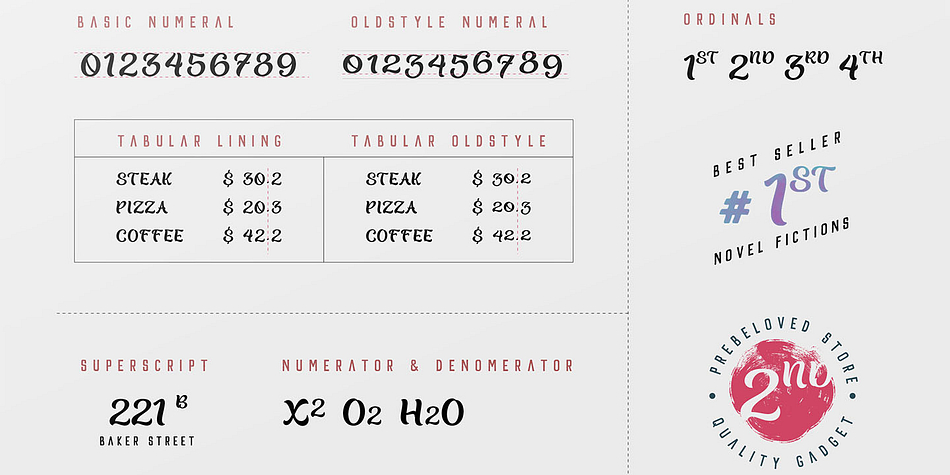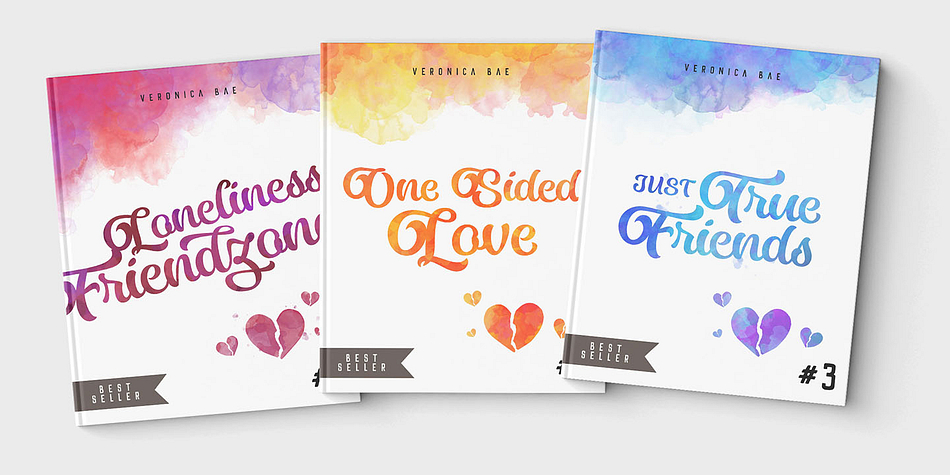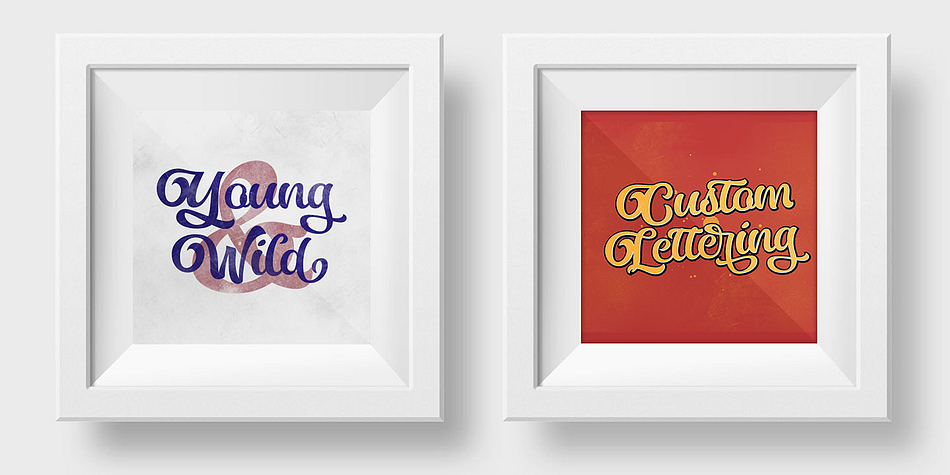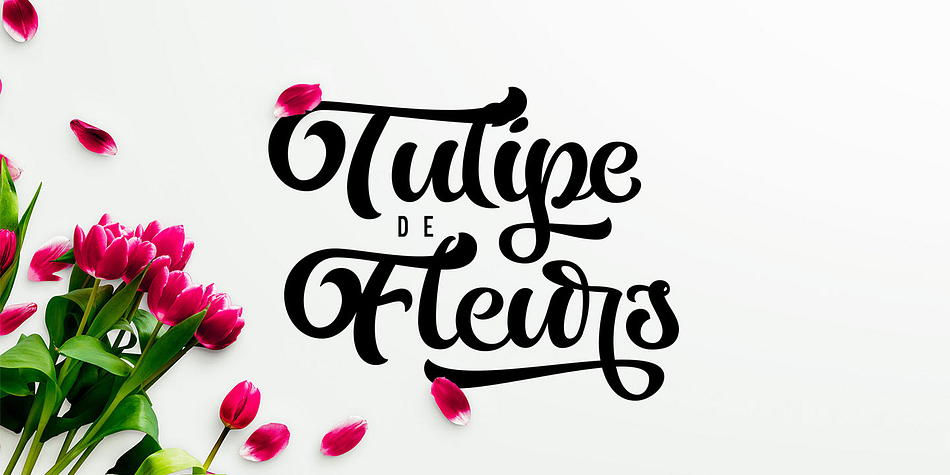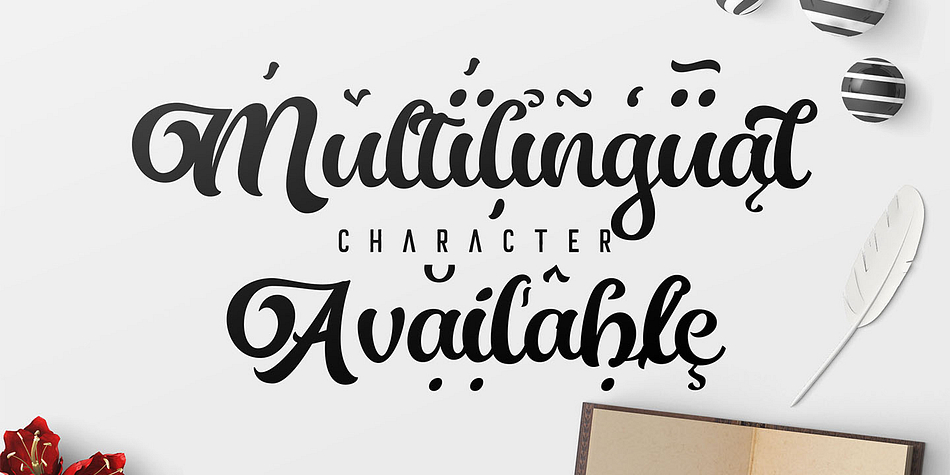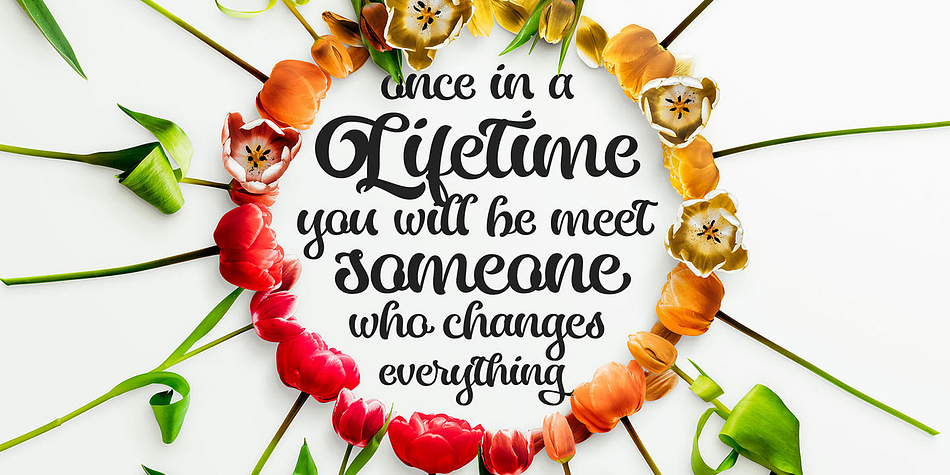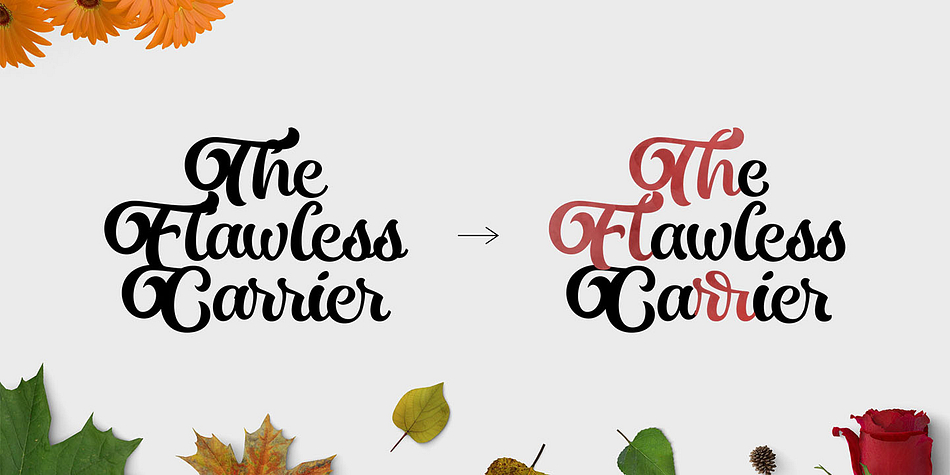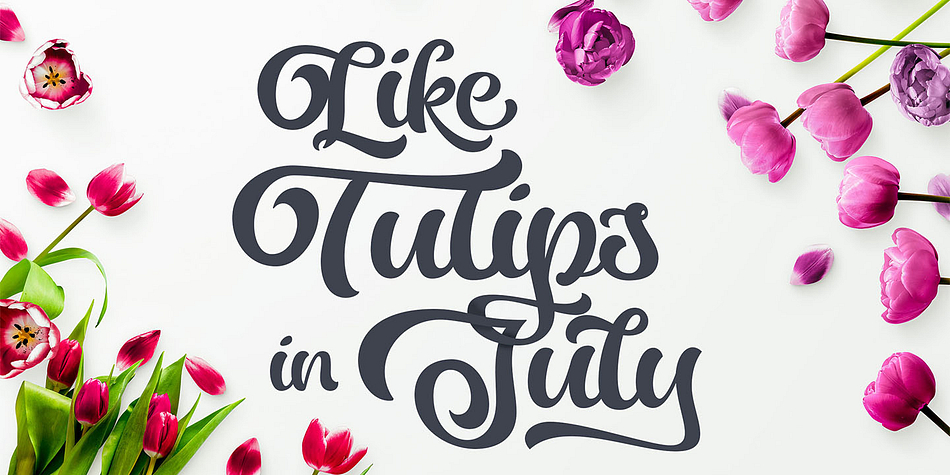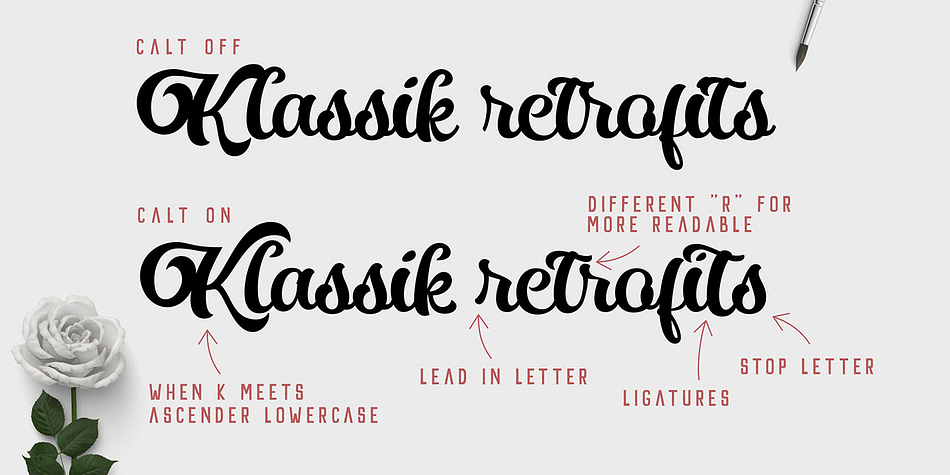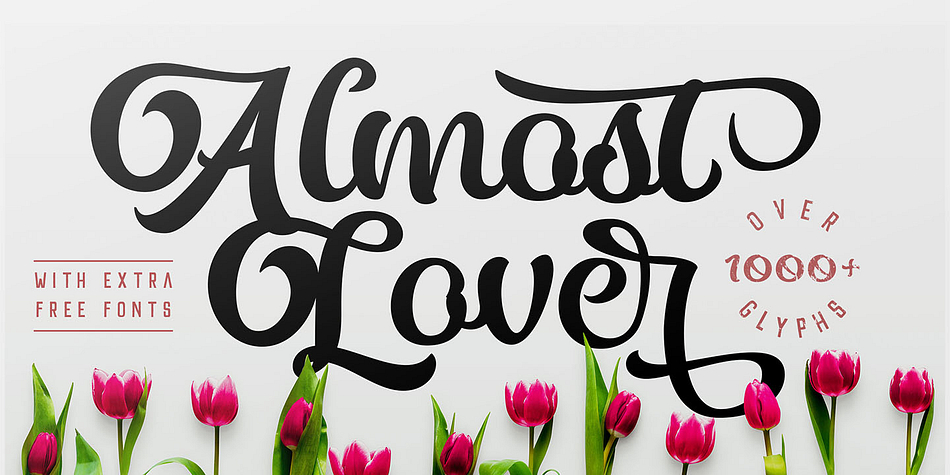
Almost Lover
Almost Lover is a script font family published by AF Studio.
Almost Lover Script.
Script font that have a huge alternate characters this gives many options to choose the best for you. Inspired by the dynamic style of hand lettering script and created not too feminine or masculine to make it more unlimited style for your lovely work such as : logos, posters, invitation, wedding, artistic design, website header, t-shirt, accessories, souvenir, etc.
Over 1000+ Glyphs with up to 25 alternate stylistic characters on some letter, and the Titling Alternates Features replacing the swash at Uppercase with the normal one, so if you want to type with uppercase just use the Titling Alternates. Tabular Lining if you want to create great price menu. Oldstyle Numeral also available if you need it. Punctuation, Mark, Symbol and Multiple Language Available.
Contextual Alternates
Discretionary Ligatures
Stylistic Alternates
Titling Alternates
Numerator & Denominator
Fraction
Oldstyle Numeral
Tabular Lining & Tabular Oldstyle
Superscript